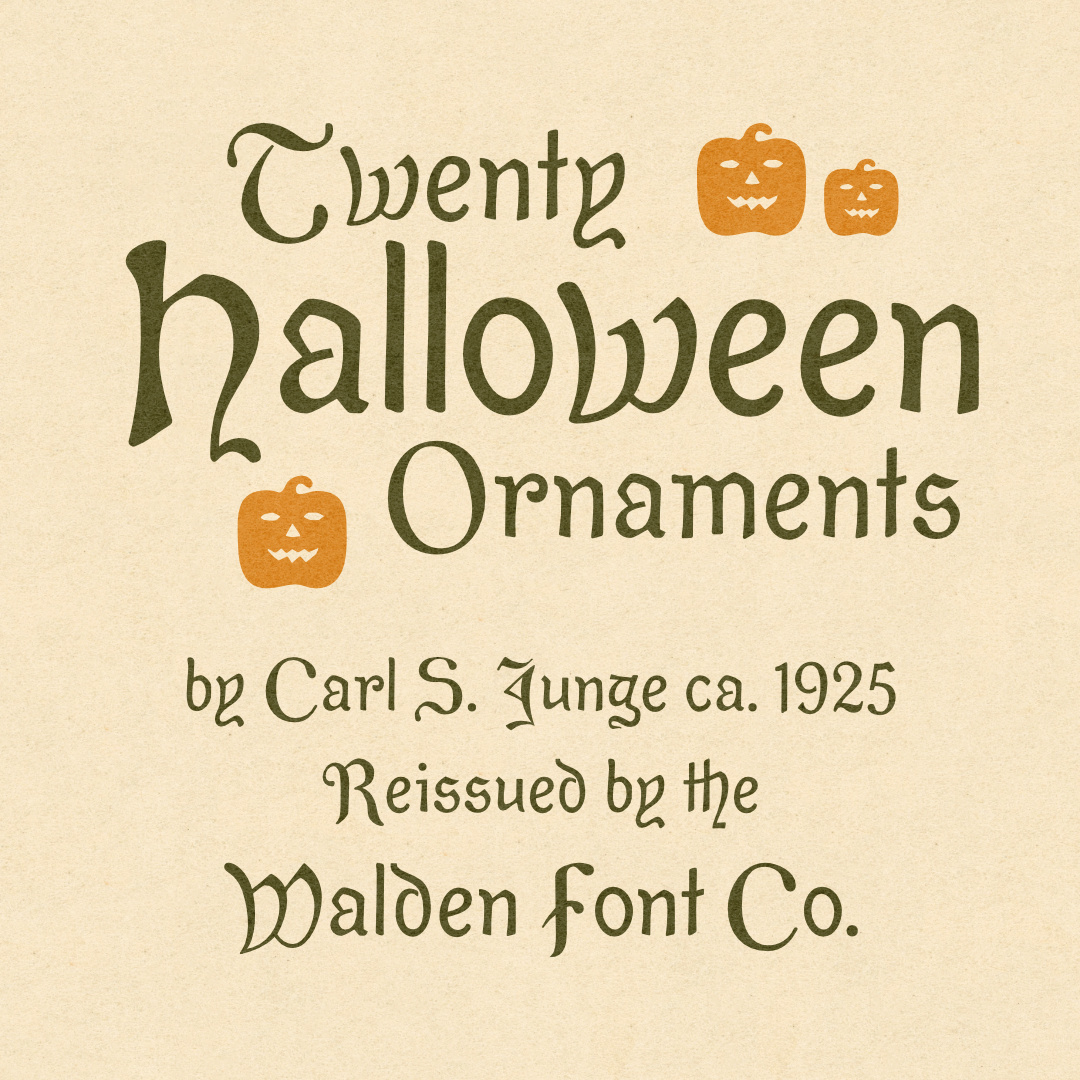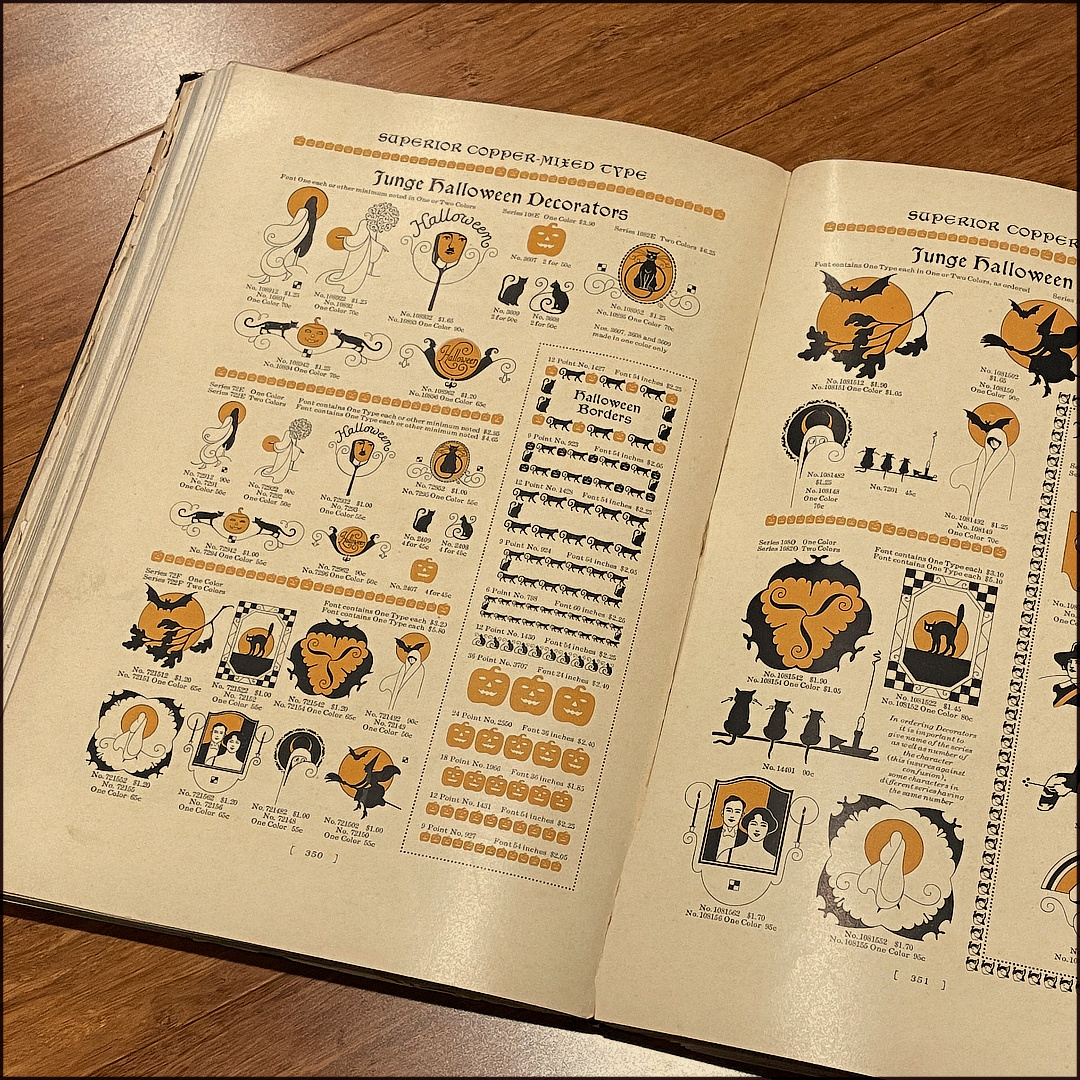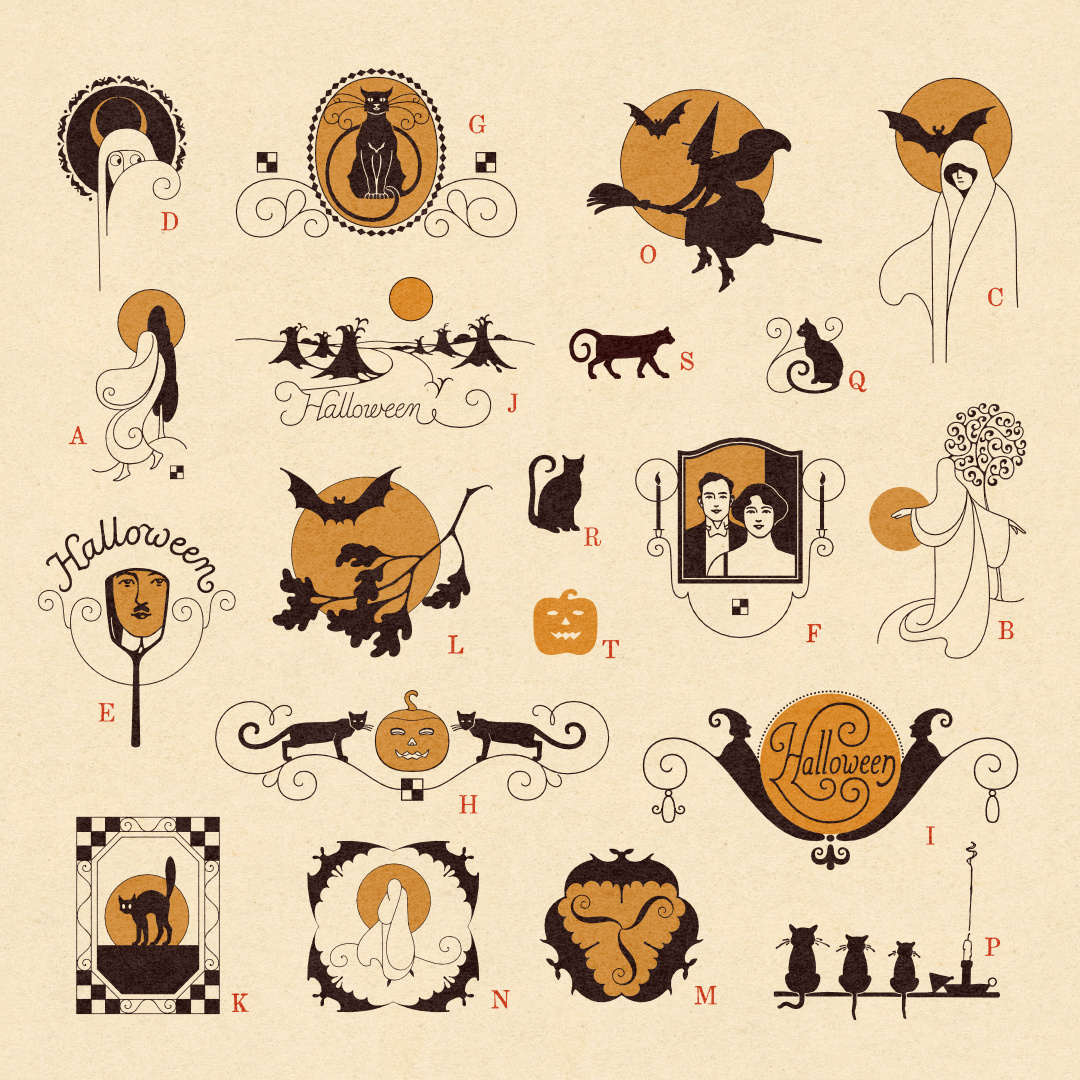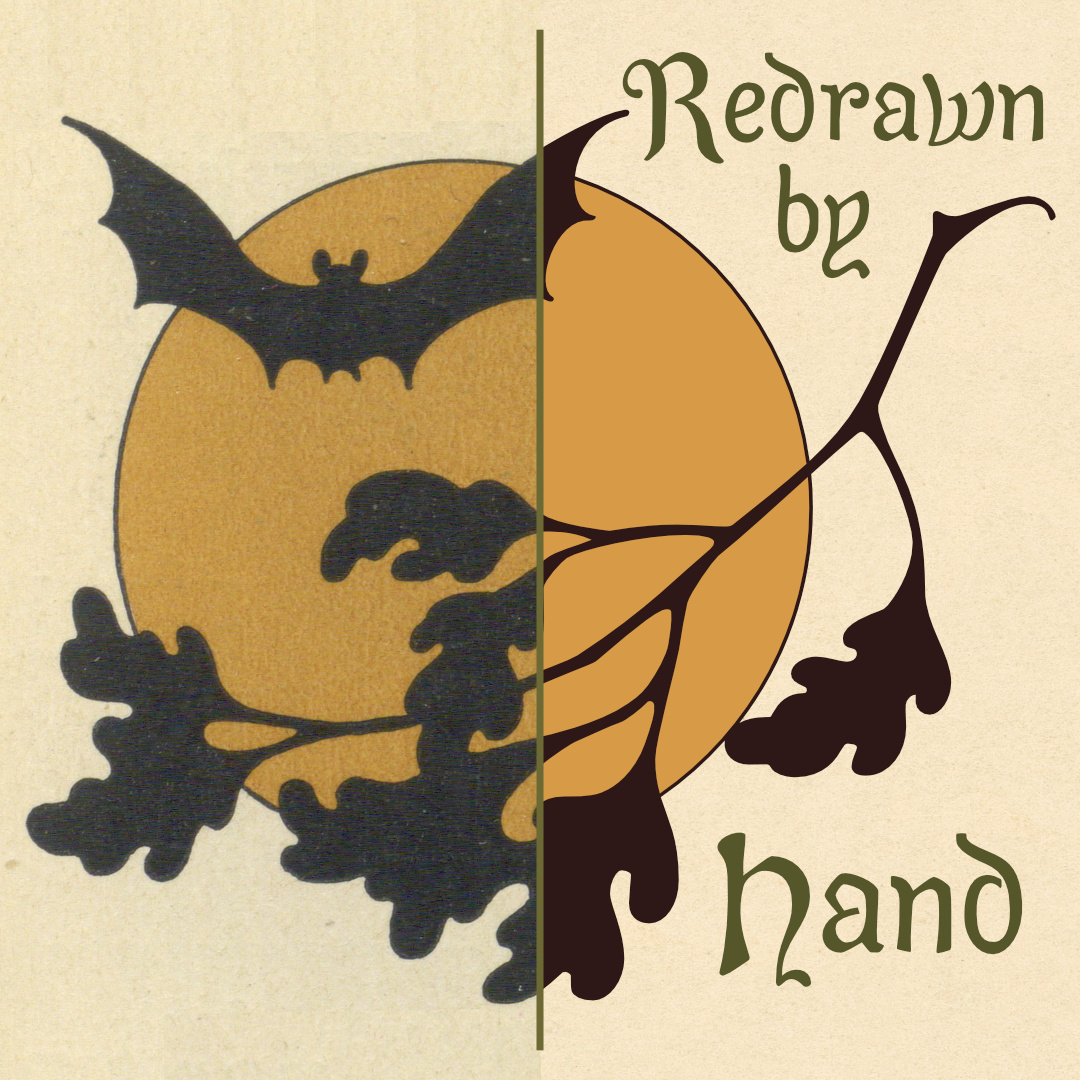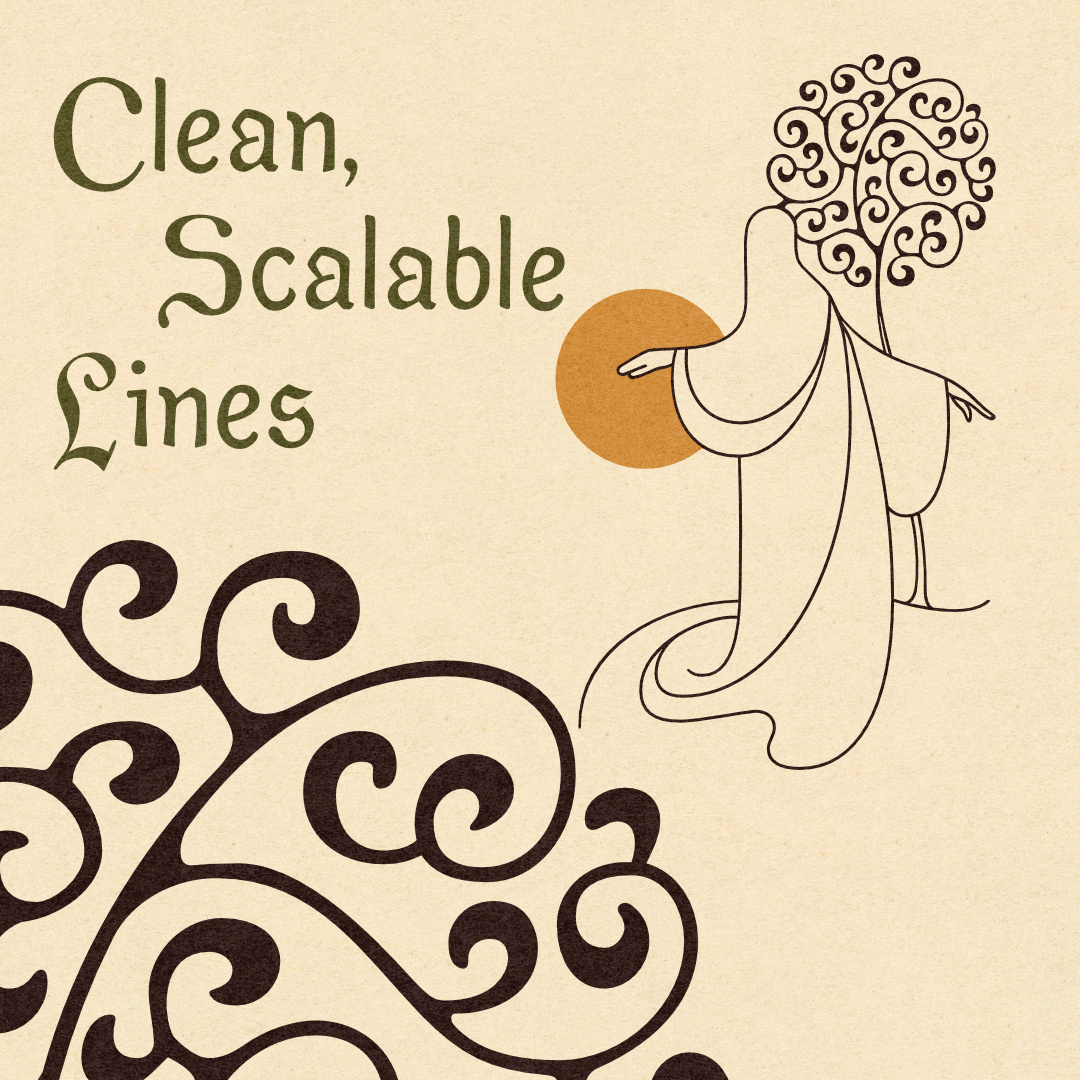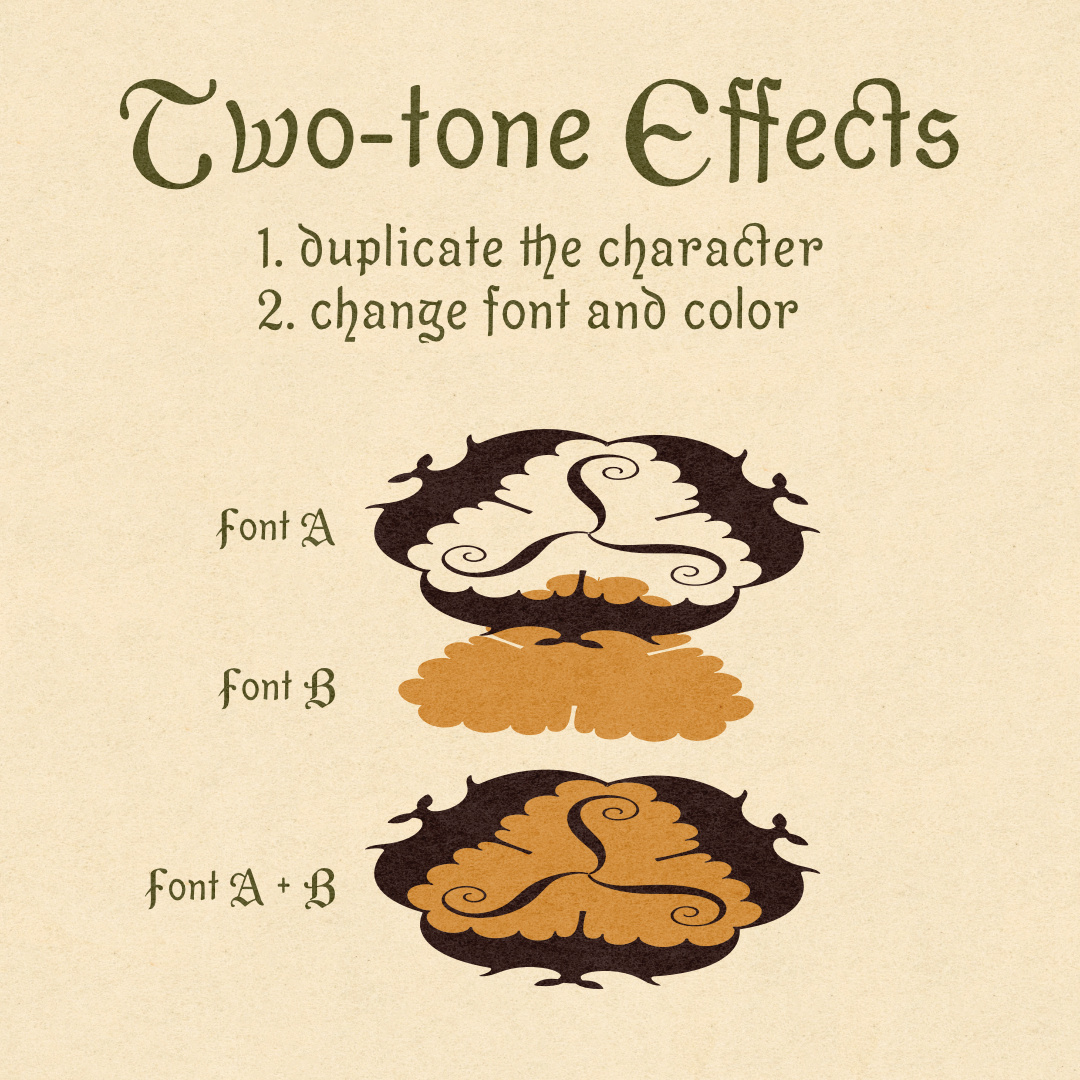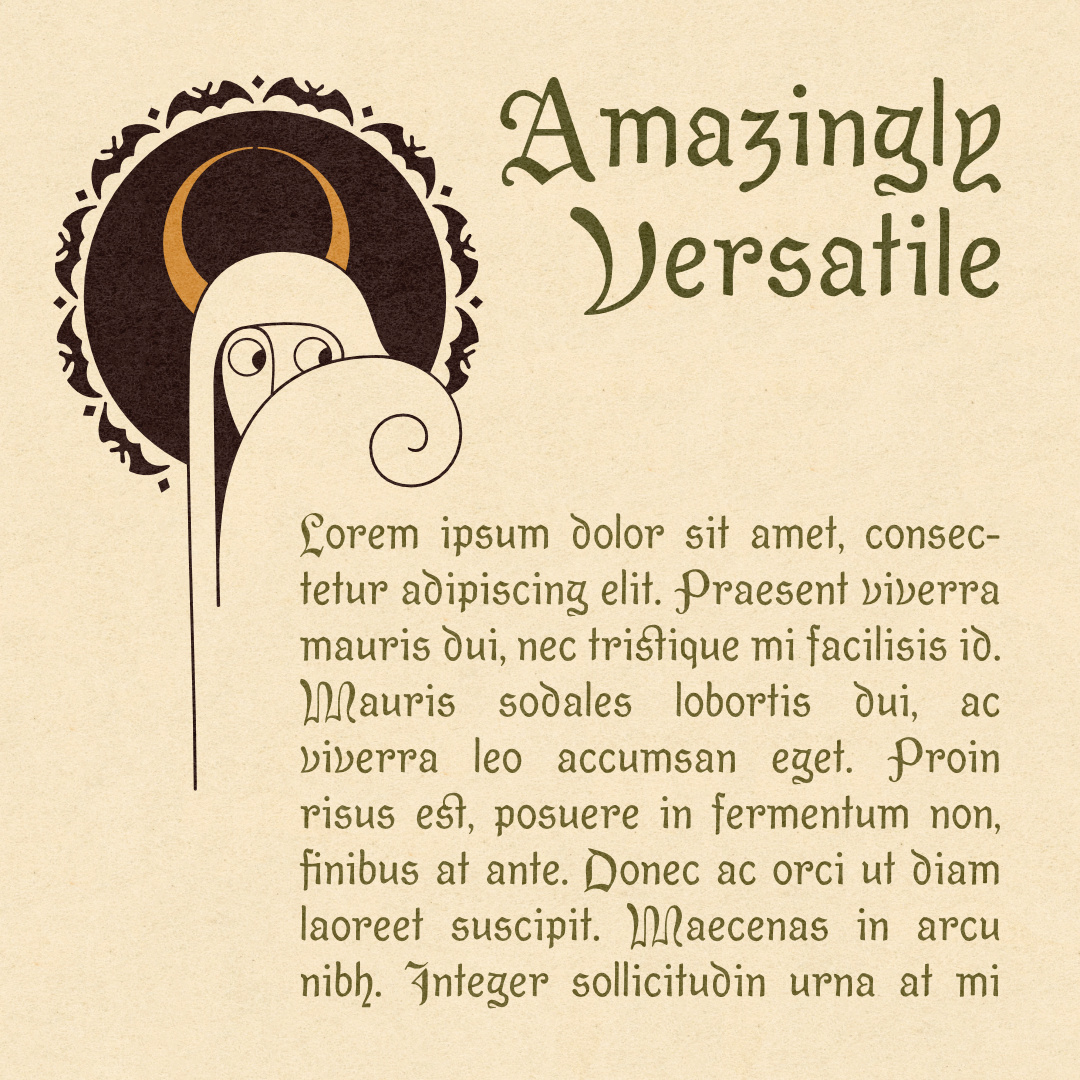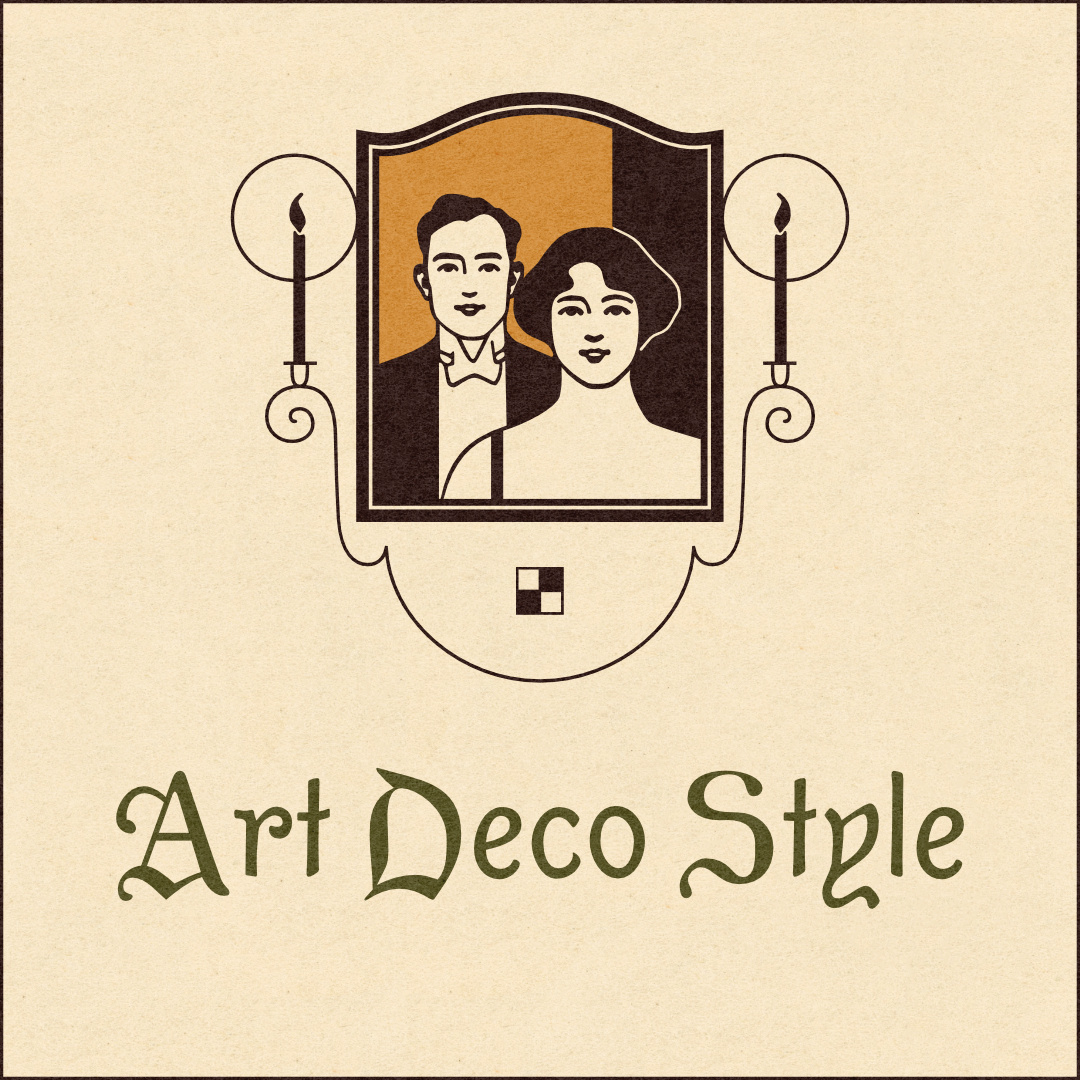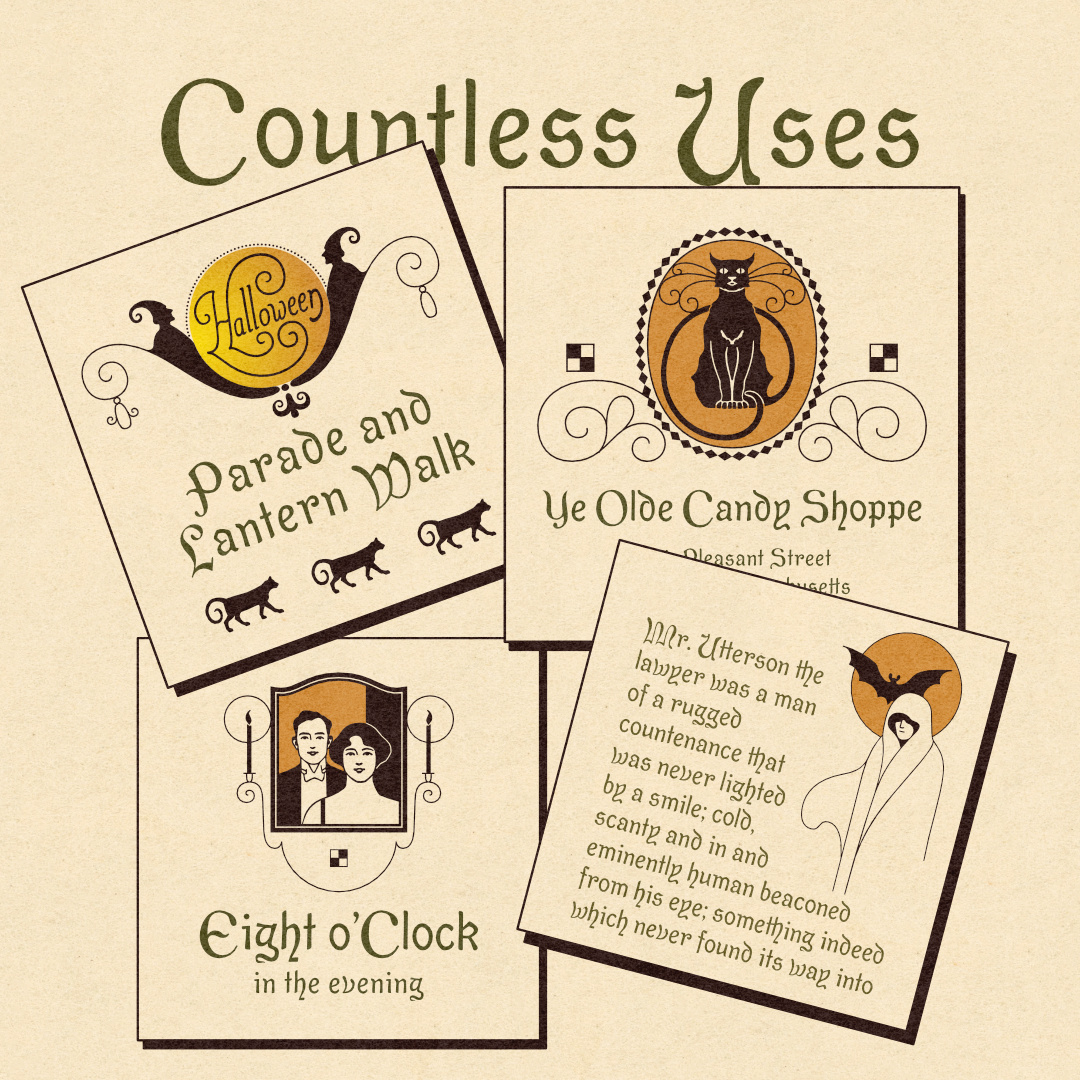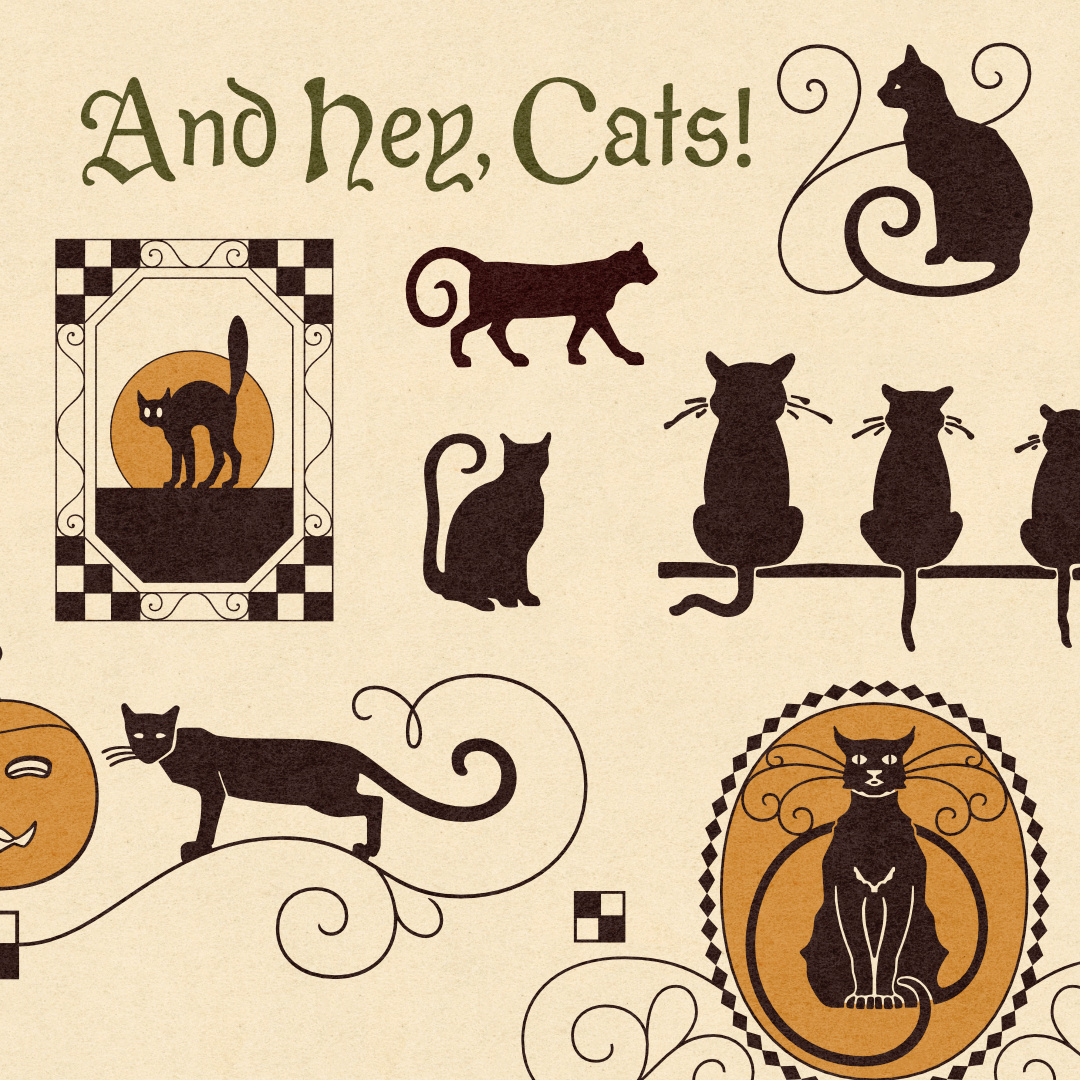
WF Halloween Ornaments is a resurrection of the "Junge Halloween Decorators" series, which consists of 20 distinctive Art Deco style designs. These were drawn by Chicago bookplate artist Carl S. Junge for the Barnhart Brothers & Spindler type foundry in about 1925. I redrew the originals by hand – the only way to achieve an authentic result. The set consists of two fonts: the base design and the color overprint. To produce the two-tone effect, align two instances of the same character on top of each other, then change the lower layer font to "WF Halloween Ornaments Color" and apply your color or effect of choice. NOTE: The text font shown in the examples is WF Hiawatha (not part of this set).